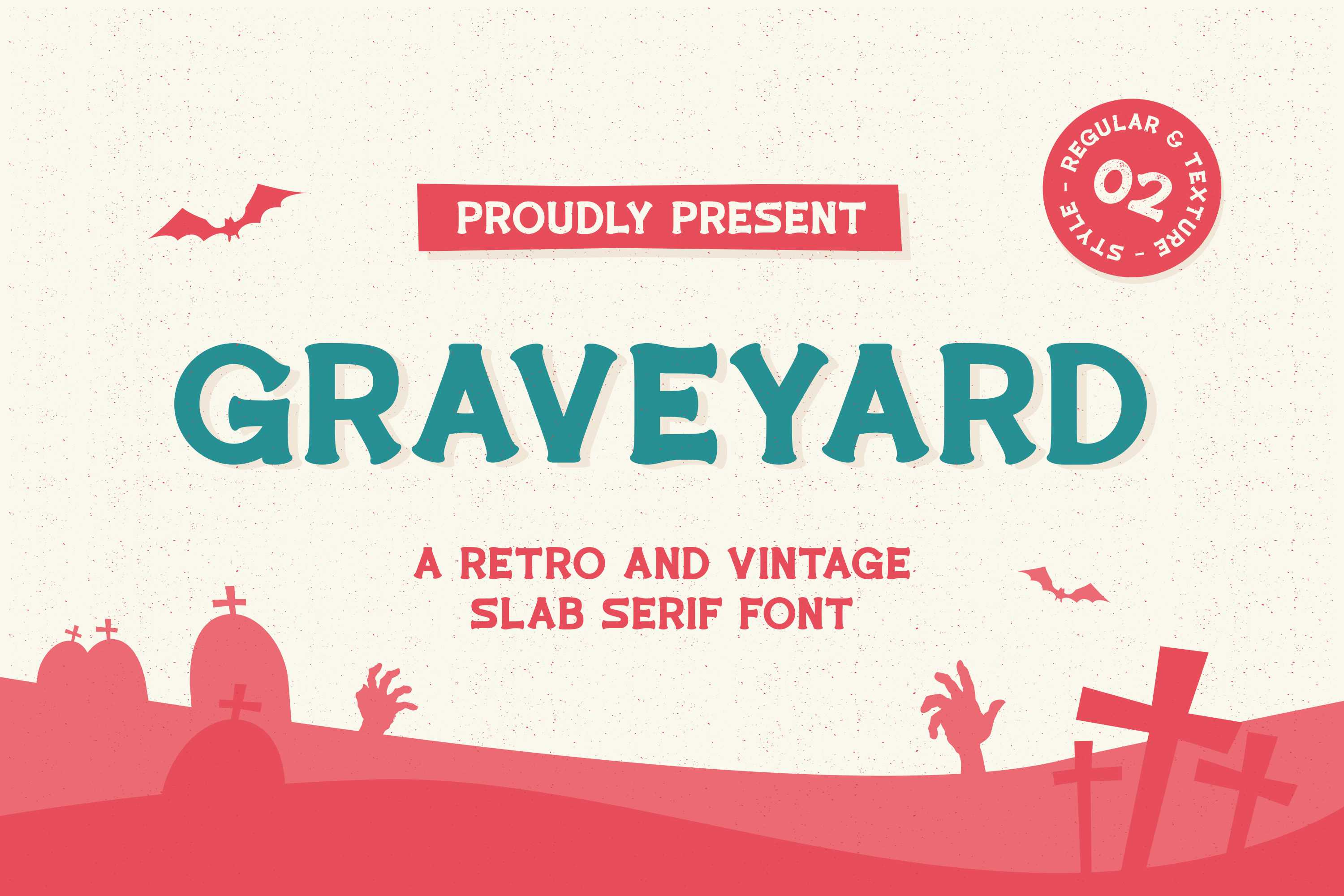
Graveyard - Vintage Slab Font
Graveyard is a Vintage Slab font available in regular and texture, it has styles a spooky, grungy, unique, covering a wide range of project types such as poster design, book covers, prints, headlines, magazines, packaging, branding. It will turn any design project into a true standout!
- Character set A-Z
- Regular and texture style
- Numerals & punctuation